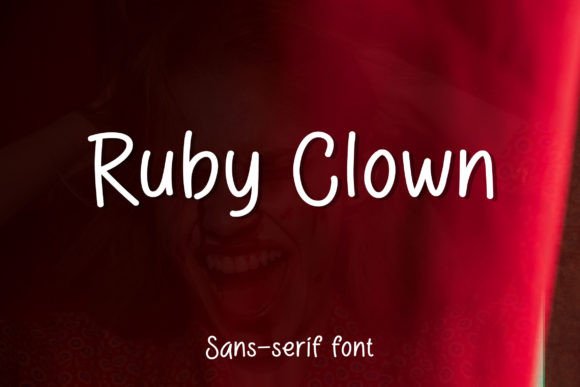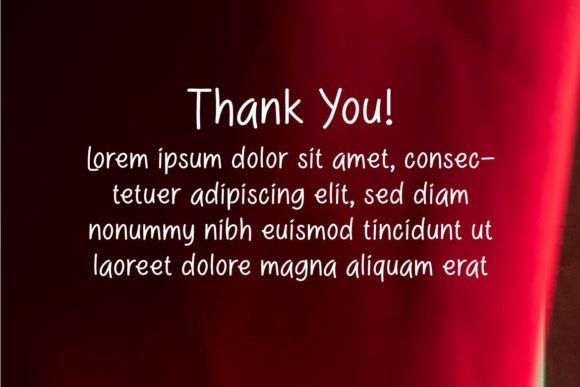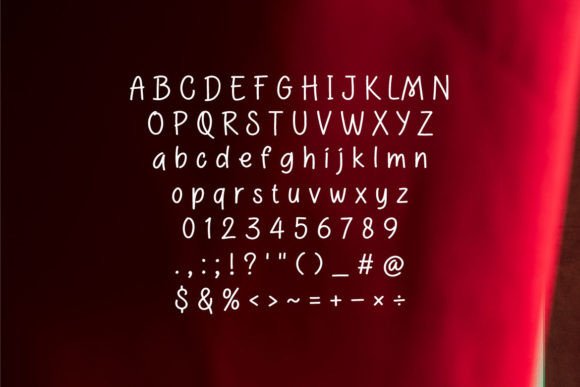
Ruby Clown Font
About Ruby Clown Font
Ruby Clown is a lovely handwritten font with modern and clean looks.
Ruby Clown can be used in any work such as comic books, schools, kindergarten, storybooks, kids’ stuff, children’s books, posters, advertisements, social media content, logos, and many more.